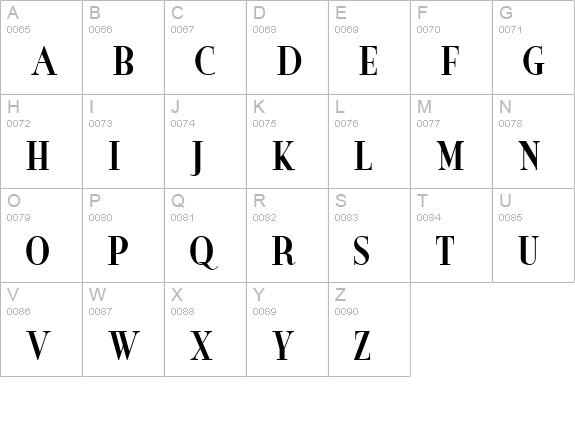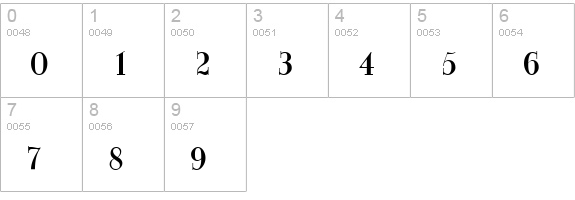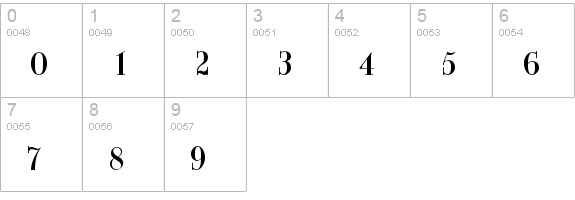
Grail New Condensed Font Details
Grail New Condensed is a distinctive, condensed-width variant in the Grail typeface family \xE2\x80\x94 well suited to design and typography projects.
Grail New Condensed is a sleek and modern typeface that exudes sophistication and elegance. With its clean lines and minimalist design, this font is perfect for creating eye-catching designs that demand attention. The condensed style of Grail New Condensed makes it ideal for headlines, branding, and other projects where space is limited but impact is crucial. The versatility of Grail New Condensed allows it to be used across various design applications, from print materials to digital platforms. Its timeless appeal and contemporary flair make it a go-to choice for designers looking to add a touch of class to their work. Best of all, Grail New Condensed is available for free download at FontsMarket.com, giving designers easy access to this high-quality font without breaking the bank. Whether you're working on a personal project or a client's campaign, Grail New Condensed is sure to elevate your design to the next level.